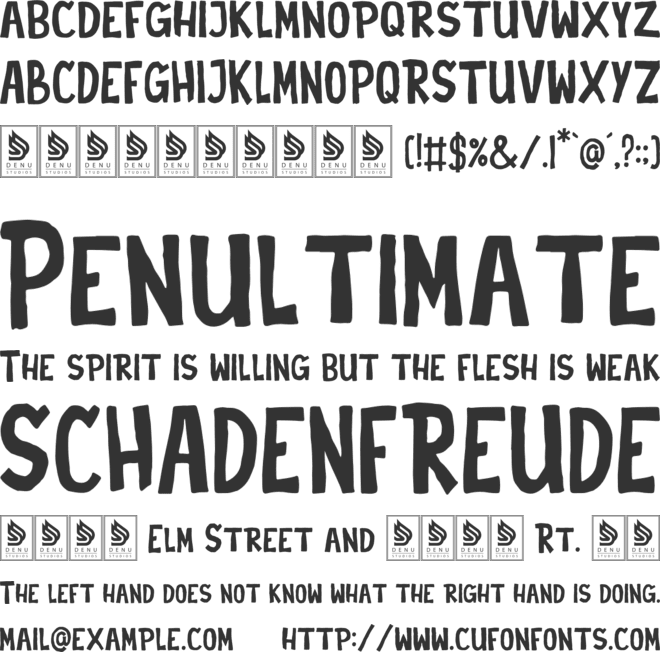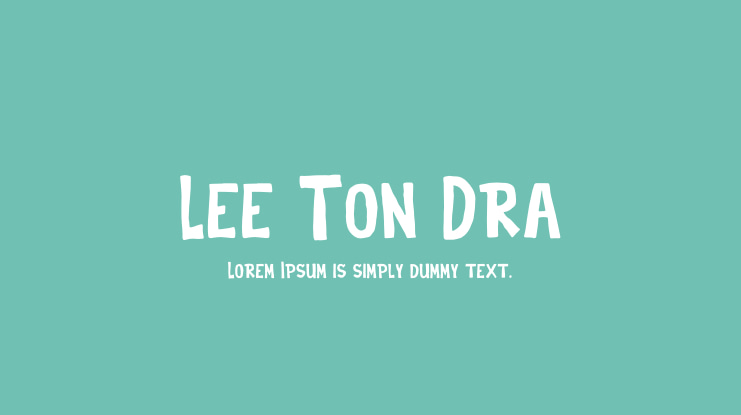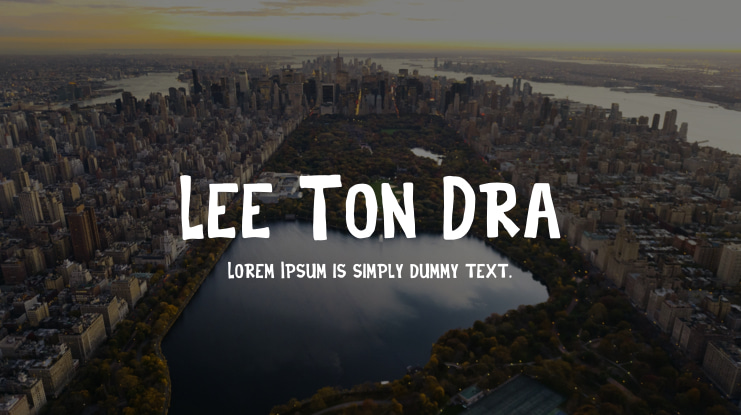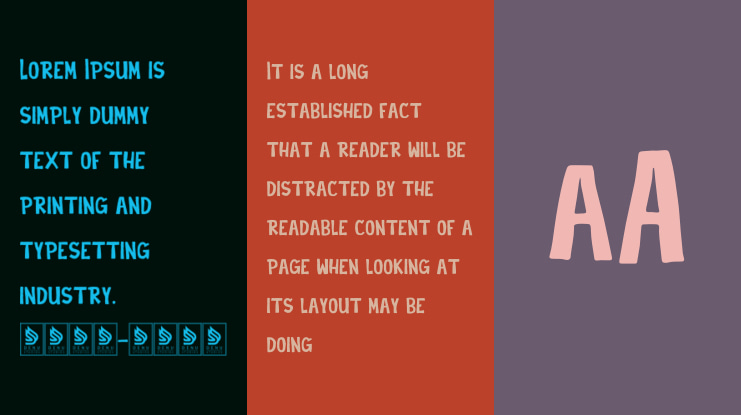
**Lee Ton Dra | Hand Drawn 3 Style Font**
This versatile font is perfect for a wide variety of projects, including logos, branding, homeware designs, product packaging, mugs, quotes, posters, shopping bags, t-shirts, book covers, name cards, invitation and greeting cards, labels, photography, watermarks, special events, and any other creative endeavor that requires a Hand Drawn 3 Style Font touch.